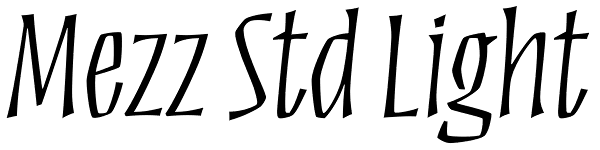
Mezz
Clarinetist Milton 'Mezz' Mezzrow (1899-1972) was a remarkable jazz musician-hipster-raconteur (anyone interested should read his autobiography Really the Blues.) His sharp tone and serpentine lines inspired English letter cutter-lettering...